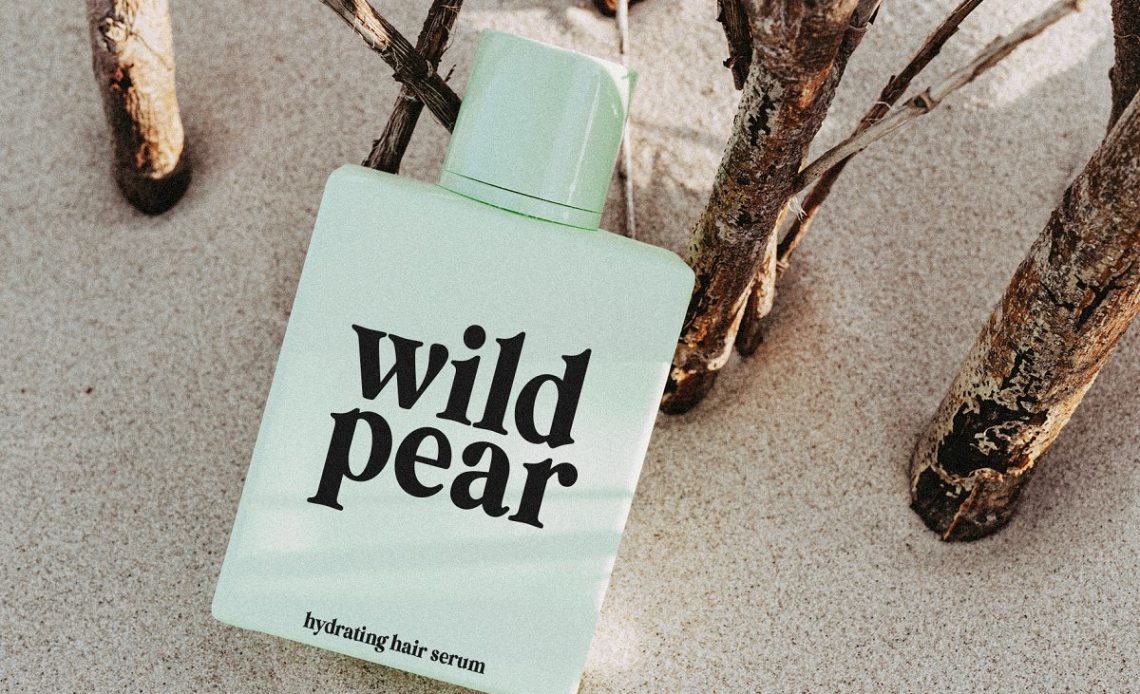
Introducing West Avenue, a modern serif font designed by the talented Kaitlynn Albani. This font family is perfect for those who want to add a touch of elegance and sophistication to their designs. With its unique curvy ligatures, West Avenue offers a fresh twist on the classic serif font style.
Whether you want to create a bold statement or convey a vintage feel, West Avenue is the font for you. Its versatility makes it ideal for a wide range of projects, from logos and branding to social media graphics and wedding invitations. The font's alternate letters, featuring curvy swashes, are easily accessible in popular design programs like Photoshop and Illustrator. Even if you're using a more basic program, you can still access these letters by using your character map or font book.
West Avenue is more than just a font - it's a statement. Its bold yet elegant style is sure to capture attention and leave a lasting impression on your audience. Use it to elevate your brand and create designs that are both memorable and timeless.
Don't settle for a basic font when you can use West Avenue to take your designs to the next level. Let this modern serif font be the inspiration behind your next creative endeavor. Download West Avenue today and let your designs speak for themselves.